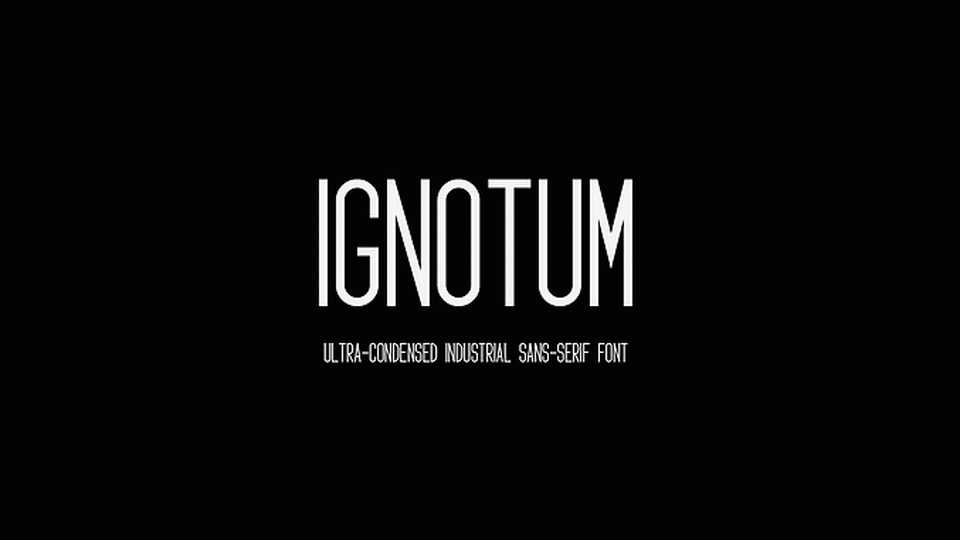
Download Ignotum font, an ultra condensed industrial sans serif font based on the simplicity and geometric forms. Good for bold branding, titling and headline.